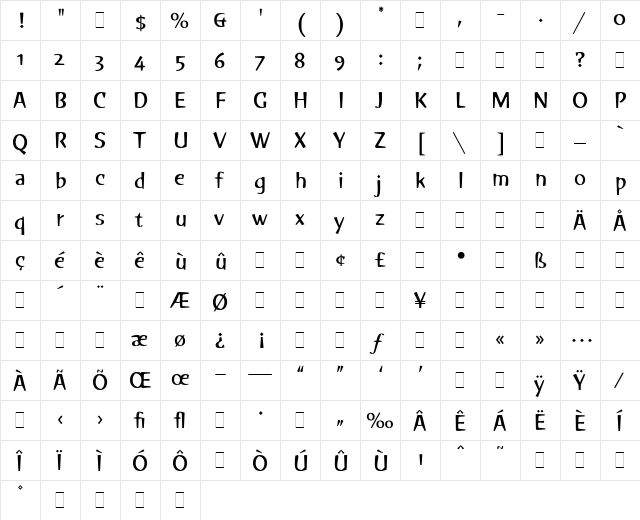
Green Plain
Design Context for Green Typeface
Green offers clean, dependable letterforms without strong stylistic allegiance, making it a practical choice for designers who need flexibility.